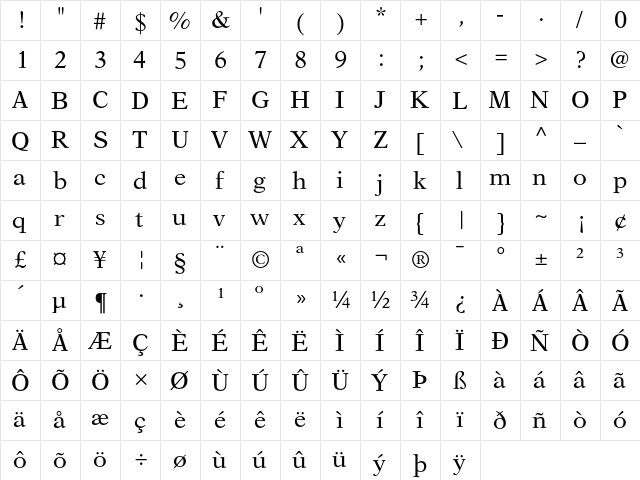
NewAster Regular
Design Context for NewAster Typeface
NewAster takes a measured approach to typography — its balanced proportions and neutral character make it a reliable workhorse for both digital and print work.